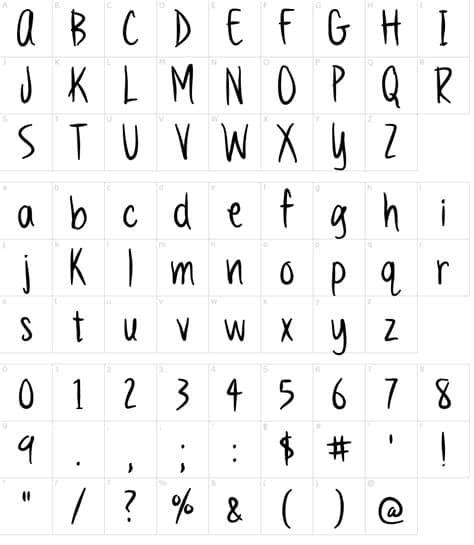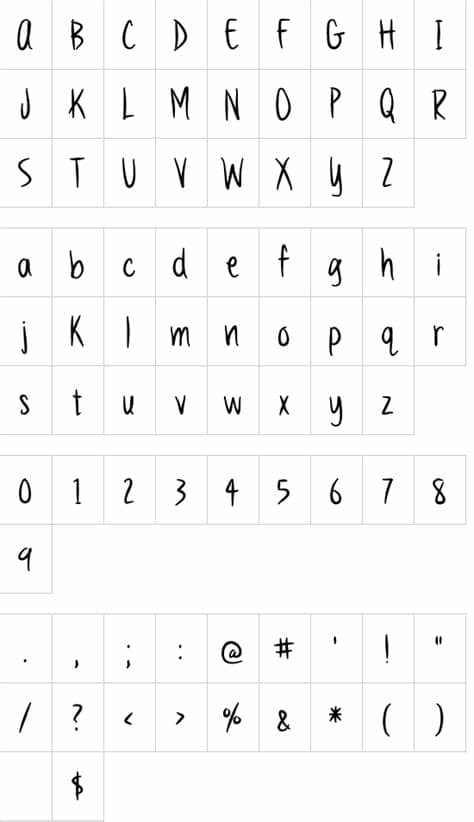
Vanilla twilight script the quick brown fox jumps over the lazy dog. Vanilla twilight is a collection of handwritten fonts for every design project that requires a light, cute and charming feel. Preview the vanilla twilight script font for windows, mac and linux. This font demo is only for personal use! .cool font;script fonts;ttf;free ttf;font ttf;freeware;typefaces;typography;dingbats;typeface;fonts;true type;free fonts;fonts free;font download;handwriting font;handwriting fonts;freefonts;webfonts;free script fonts;best free fonts;opentype;truetype;postscript type;fonte vanilla twilight script.
Category script, handwriting, fancy, cute. Use it to make any design project stand out! Vanilla twilight script is a free font for personal use created by blue studio09. Please research the license information before using it. Vanilla twilight is a sweet and cool handwritten font with a unique feel. Purchase a commercial license from www.brittneymurphydesign.com. Vanilla twilight download fonts free dafonts , free download full, free download fonts free. You can download the vanilla twilight script font to your computer or use it on your website. Get inspired by its unique charm! Vanilla twilight script font download is available free from fontget. Favorite font name custom text abcde. .cool font;script fonts;ttf;free ttf;font ttf;freeware;typefaces;typography;dingbats;typeface;fonts;true type;free fonts;fonts free;font download;handwriting font;handwriting fonts;freefonts;webfonts;free script fonts;best free fonts;opentype;truetype;postscript type;fonte vanilla twilight script. Vanilla twilight.ttf windows and mac os x compatible.
Click any character to copy it to your clipboard. Vanilla twilight is a collection of handwritten fonts for every design project that requires a light, cute and charming feel. Uploaded by murray.luna (1 styles). Free download of vanilla twilight font. Script vanilla twilight euro fancy handwritten accents various gothic arabic.
Vanilla twilight is a collection of handwritten fonts for every design project that requires a light, cute and charming feel. Get inspired by its unique charm! Use it to make any design project stand out! Uploaded by murray.luna (1 styles). Vanilla twilight script is a script type font that can be used on any device such as pc, mac, linux, ios and android. Vanilla twilight download fonts free dafonts , free download full, free download fonts free. Vanilla twilight script the quick brown fox jumps over the lazy dog. Votes, rated based on results identification.